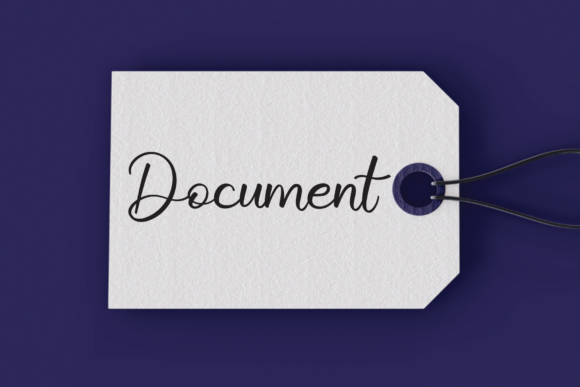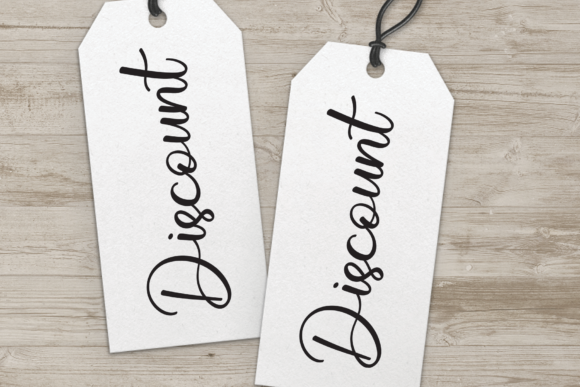
Silhouette Font
db-ku.com - Script & Handwritten -- This is a sweet, romantic, and beautiful script font. It features beautiful curves in each letter. This font is PUA coded, which means you can access all the glyphs and sweeps easily!